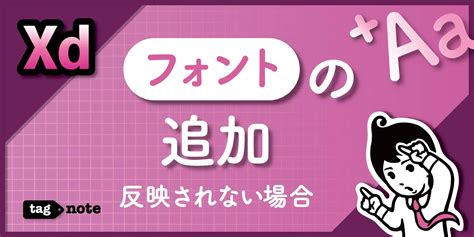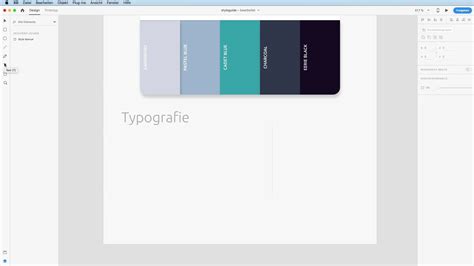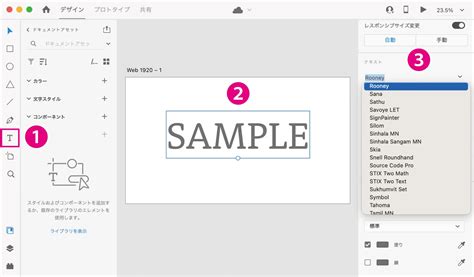
41+ Adobe Xd Fonts
When I first started prototyping interfaces, I wasted hours tweaking typography that just wouldn't render right on target devices. Finding typefaces that maintain legibility across varying screen sizes is a constant struggle. That's why I compiled my personal list of 41+ Adobe Xd Fonts that have consistently performed well in UI design. Picking the right typeface dictates how users interact with your layout, and honestly, XD handles font activation a bit differently than other design tools.
Why Choosing the Right 41+ Adobe Xd Fonts Matters
Adobe XD relies heavily on the Adobe Fonts ecosystem, which means you have access to a massive library, but syncing issues can still break your design files. In my experience, the best typefaces for XD need to offer multiple weights and clear legibility at small sizes. You aren’t just picking a pretty font; you are selecting a functional tool for your UI. I’ve tested countless combinations, and a few specific families always stand out for digital products.
Font FamilyBest Used ForKey Characteristic
InterSaaS dashboards, body textHighly legible at 12px
Avenir NextPrimary navigation, headersClean, geometric structure
Source Sans ProDense data tablesReliable workhorse
How to Organize Your 41+ Adobe Xd Fonts
Having over four dozen typefaces is great, but it can lead to decision paralysis. When I set up my UI kits, I restrict myself to two primary families: one for headings and one for body text. This is where it gets interesting because XD’s Character Styles feature makes it easy to swap these globally if a client requests a change. I recommend creating a dedicated assets panel for your typographic system to keep things tidy.
• Inter: My go-to for dense data tables and complex forms.
• Avenir Next: Excellent for primary navigation labels and modals.
• Source Sans Pro: A highly readable option for paragraph text.
Typography makes or breaks a UI. While having access to 41+ Adobe Xd Fonts gives you a strong starting point, the real magic happens when you restrict yourself to the best two or three for a specific project. Test your choices at actual mobile dimensions before you commit to them. Your users will never read the text if they can’t easily scan it.